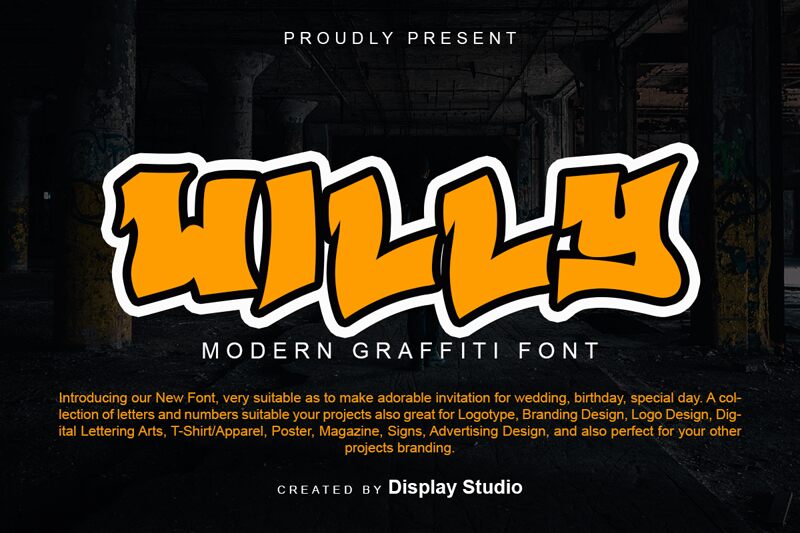
Introducing Willy - a bold, wide graffiti font designed by Display Studio. Perfect for urban-inspired projects requiring an extra dose of attitude, this eye-catching font is sure to stand out. Make a statement with Willy - ideal for street art posters, album covers, and apparel designs!